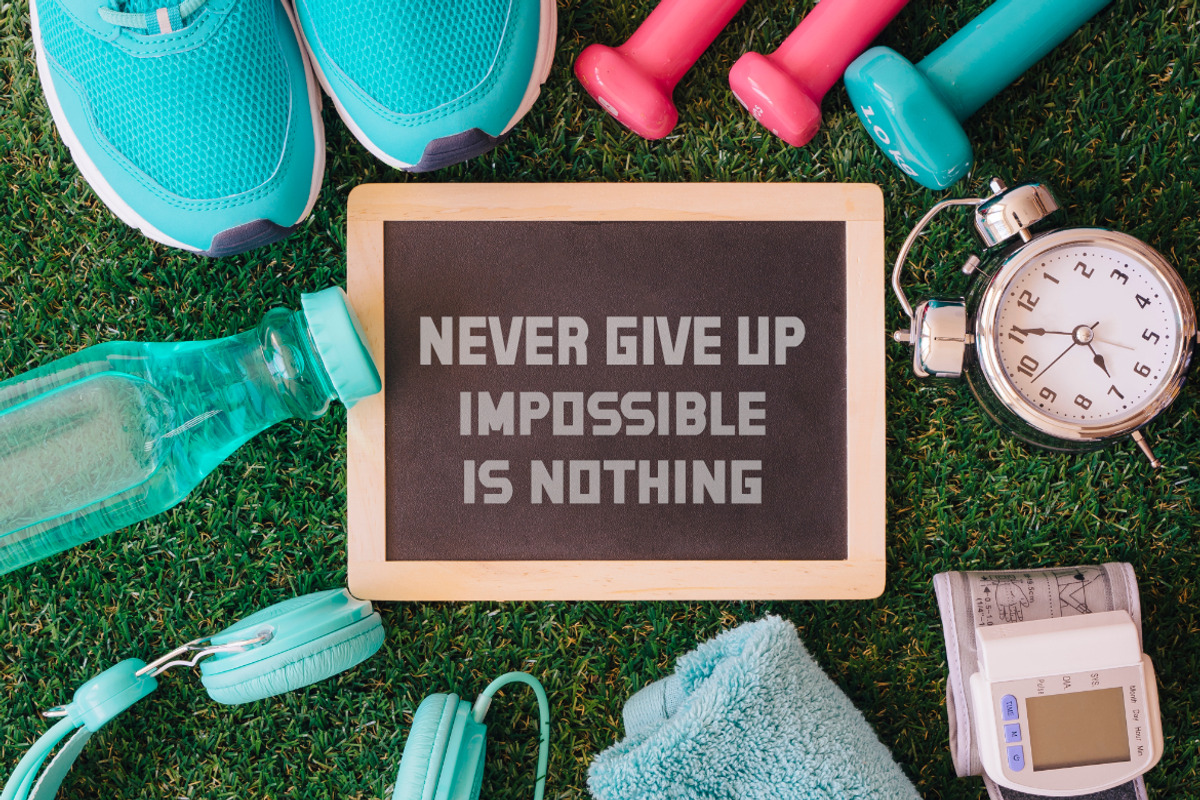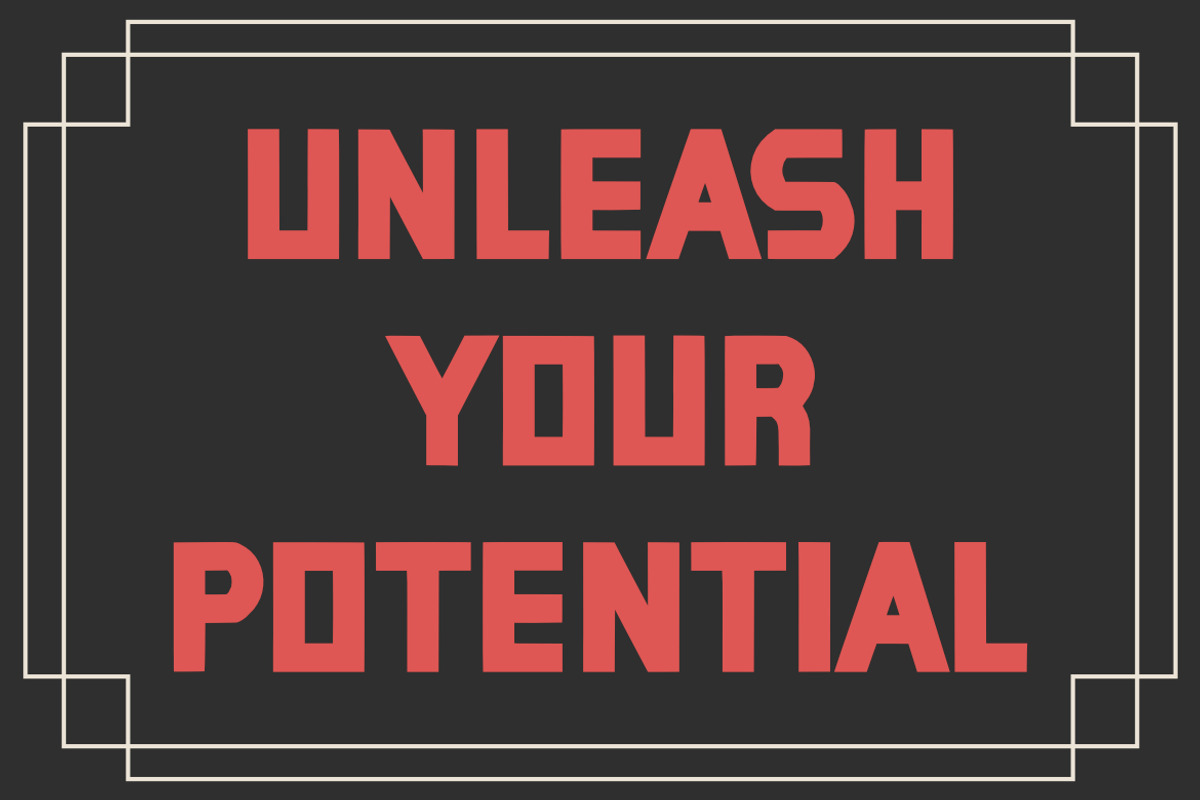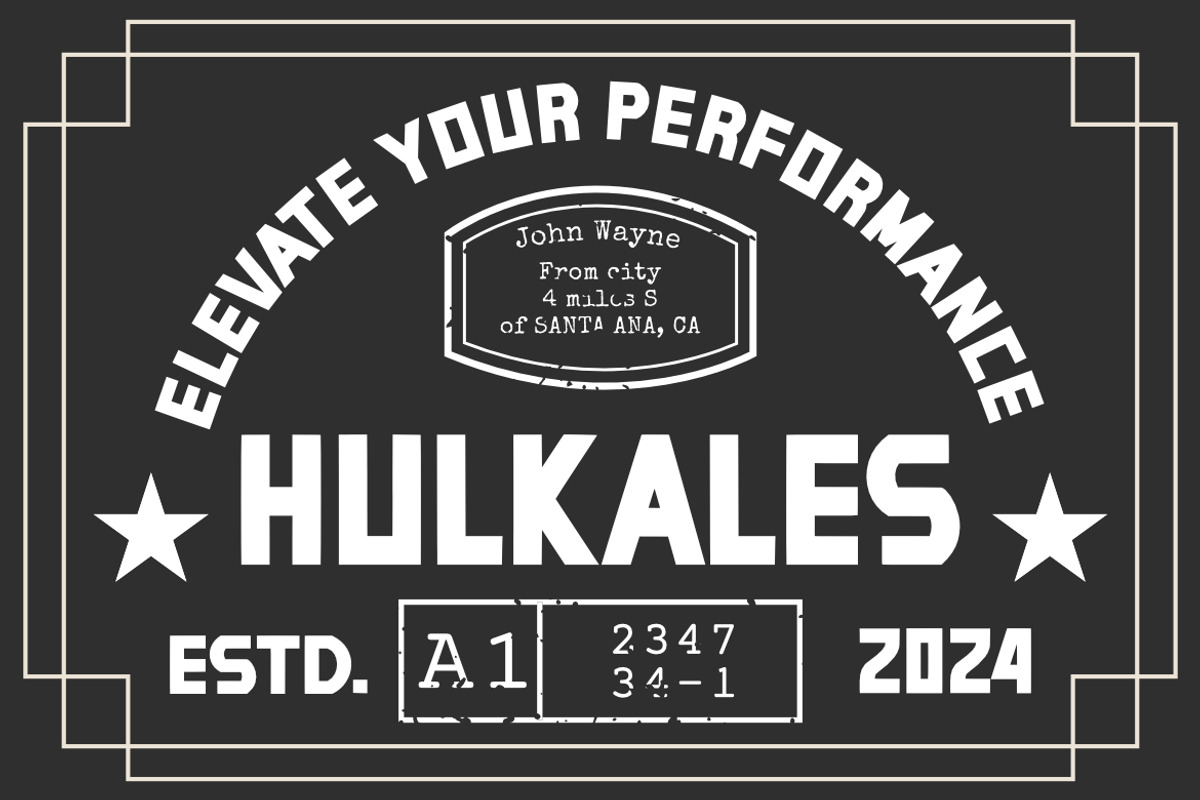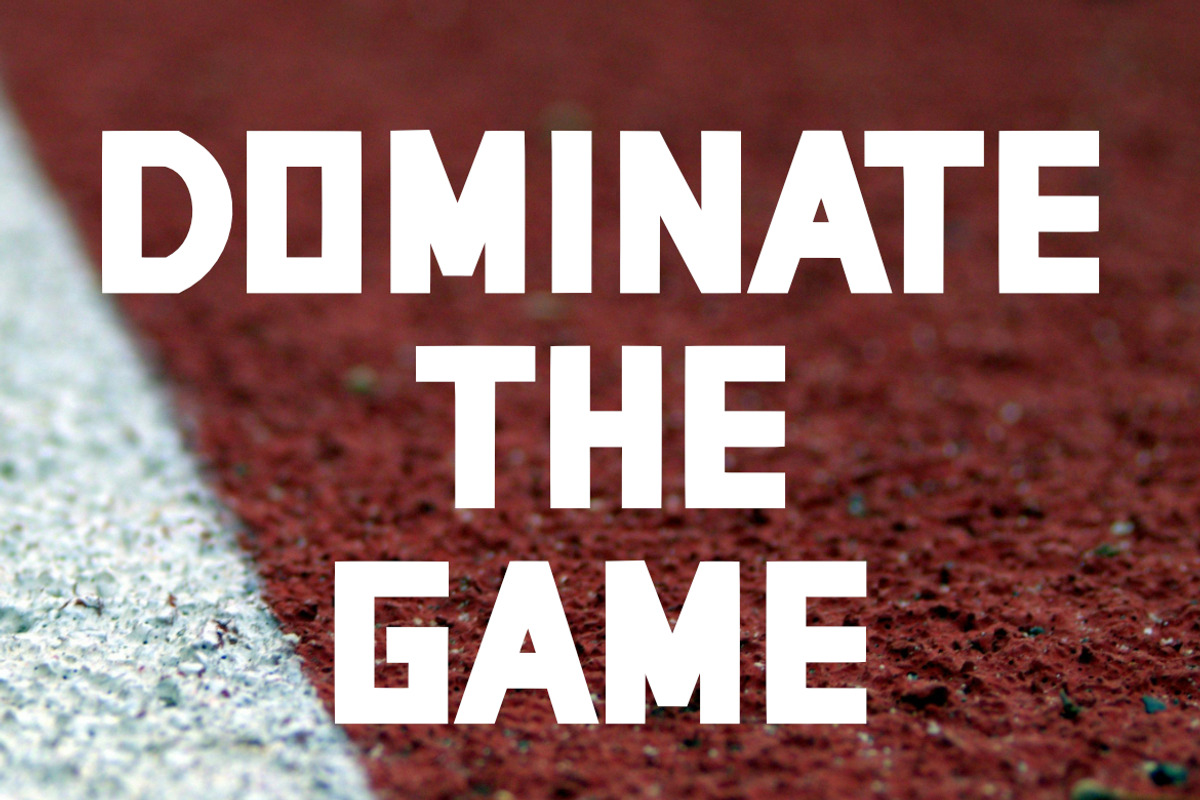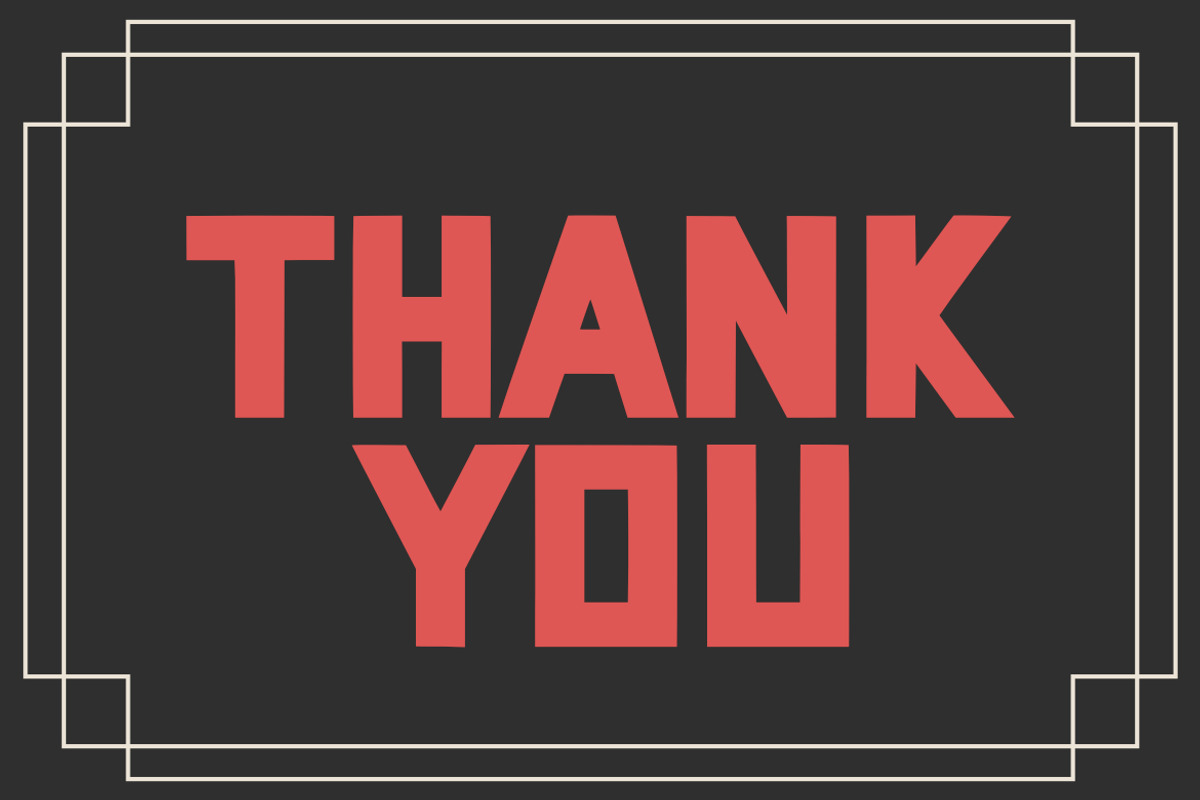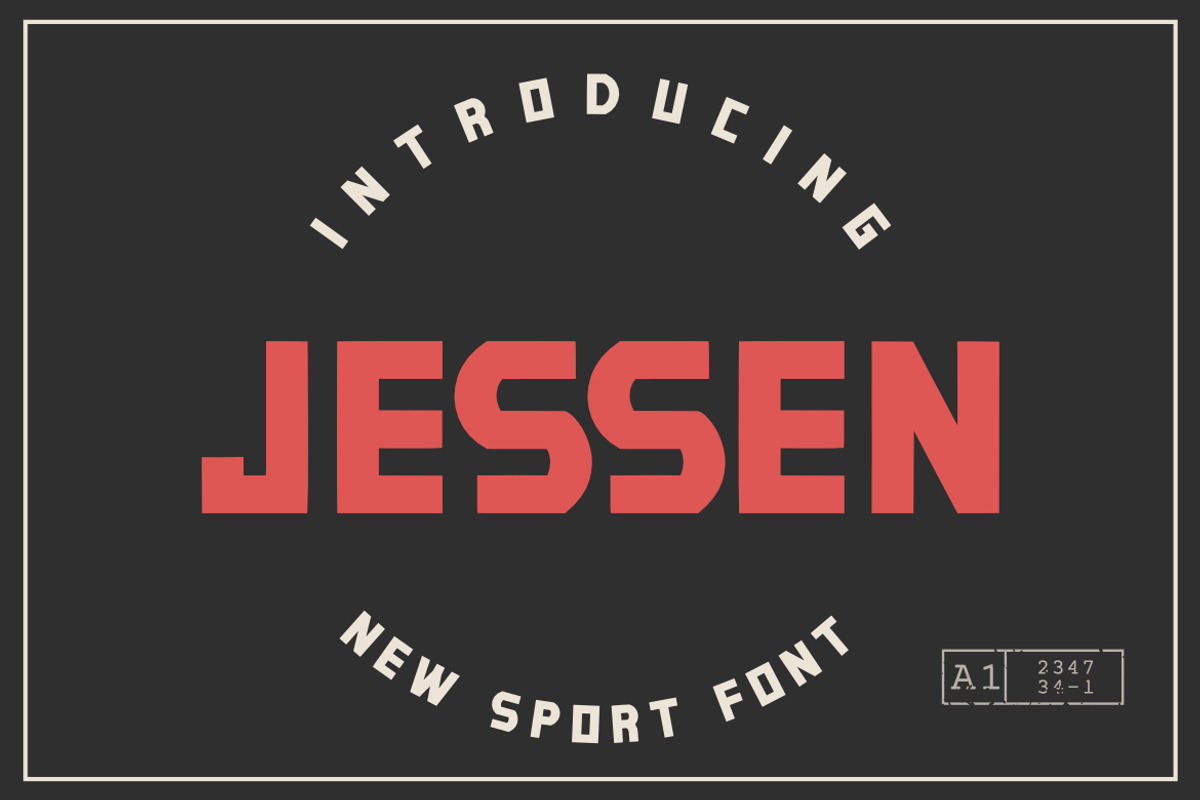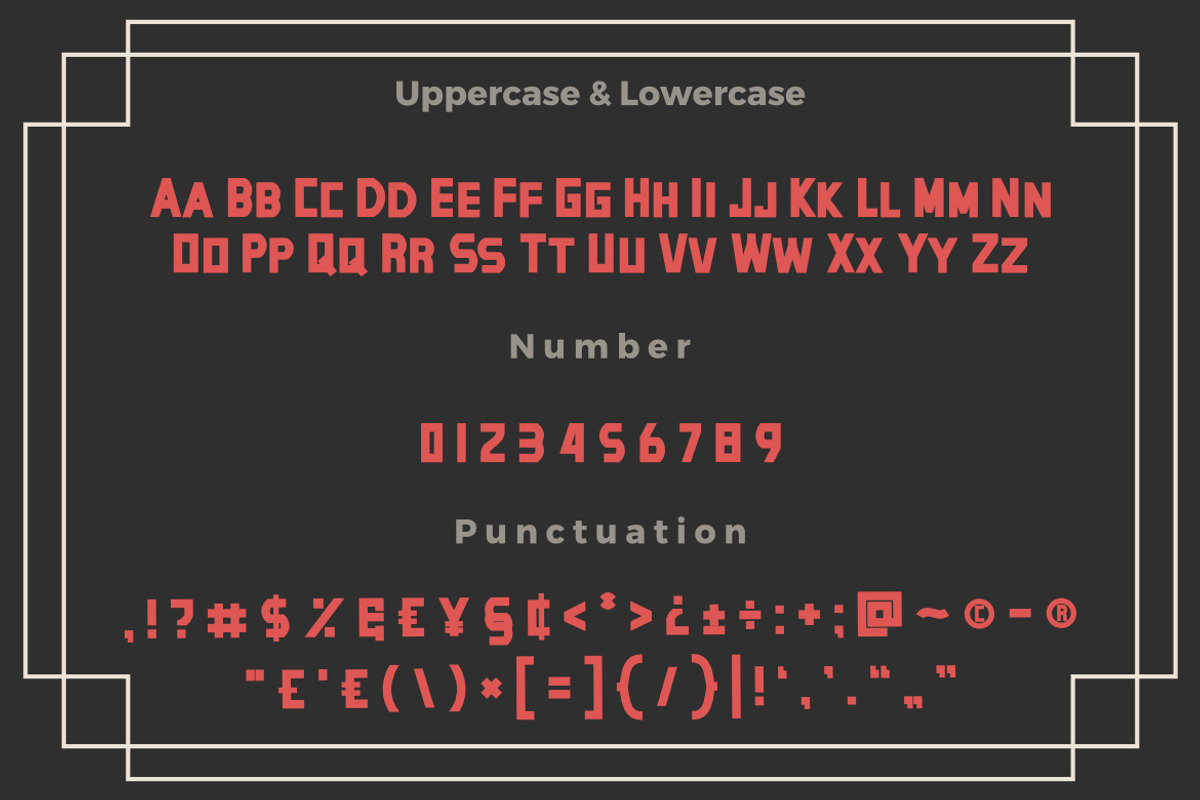
Jessen Sport Font
Jessen a New Sport Font, This font is made with a high premium quality level which you can use as flyers, quotes, posters, banners, packaging, merchandise, logotypes and much more.